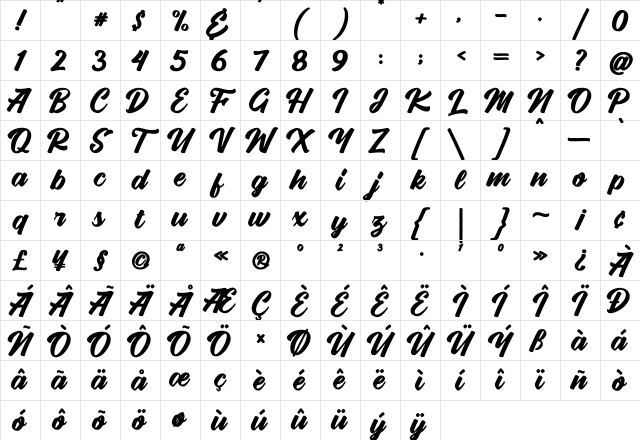
Vigrand Bold Aged Bold-Aged Free Font
Vigrand Bold Aged Bold-Aged
Style: Bold-Aged
Design Context for Vigrand Bold Aged
Vigrand Bold Aged is a composed and adaptable typeface that performs quietly and consistently across a wide range of design contexts. Its bold stroke weight gives it real presence on the page.